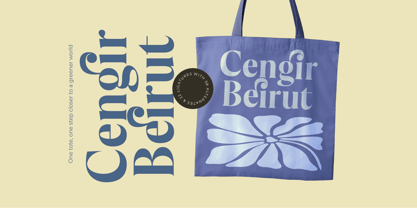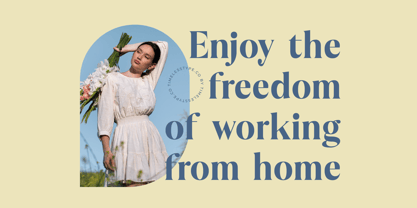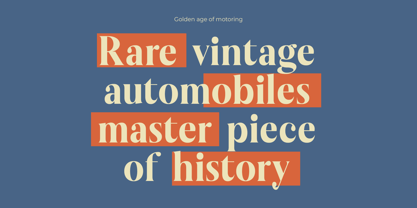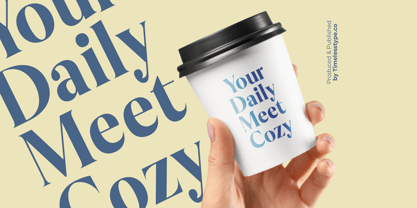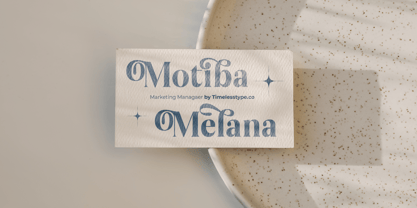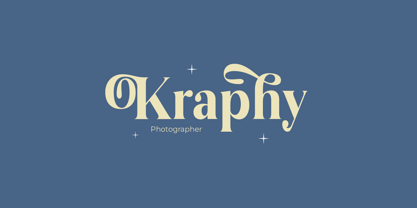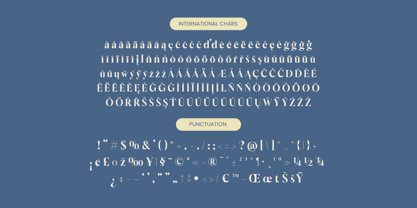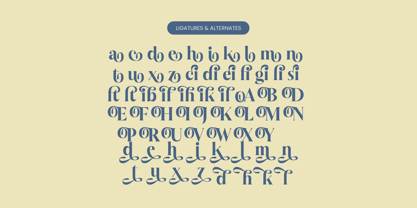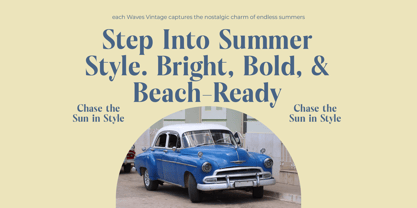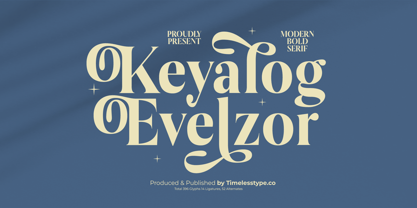
Keyalog Evelzor
by Timelesstype Studio
The Keyalog Evelzor Font Family was designed by Heru Utama Putra and published by Timelesstype Studio. Keyalog Evelzor contains 2 styles and family package options. More about this family
Keyalog Evelzor - Modern Bold Serif , from Timelesstype , Suitable for any projects such as: logos, branding projects, homeware designs, product packaging, mugs, quotes, posters, shopping bags, t-shirts, book covers, name card, invitation cards, greeting cards, label, photography, watermark, special events, and all your other luxury and beautiful projects that need a Luxury Serif taste.